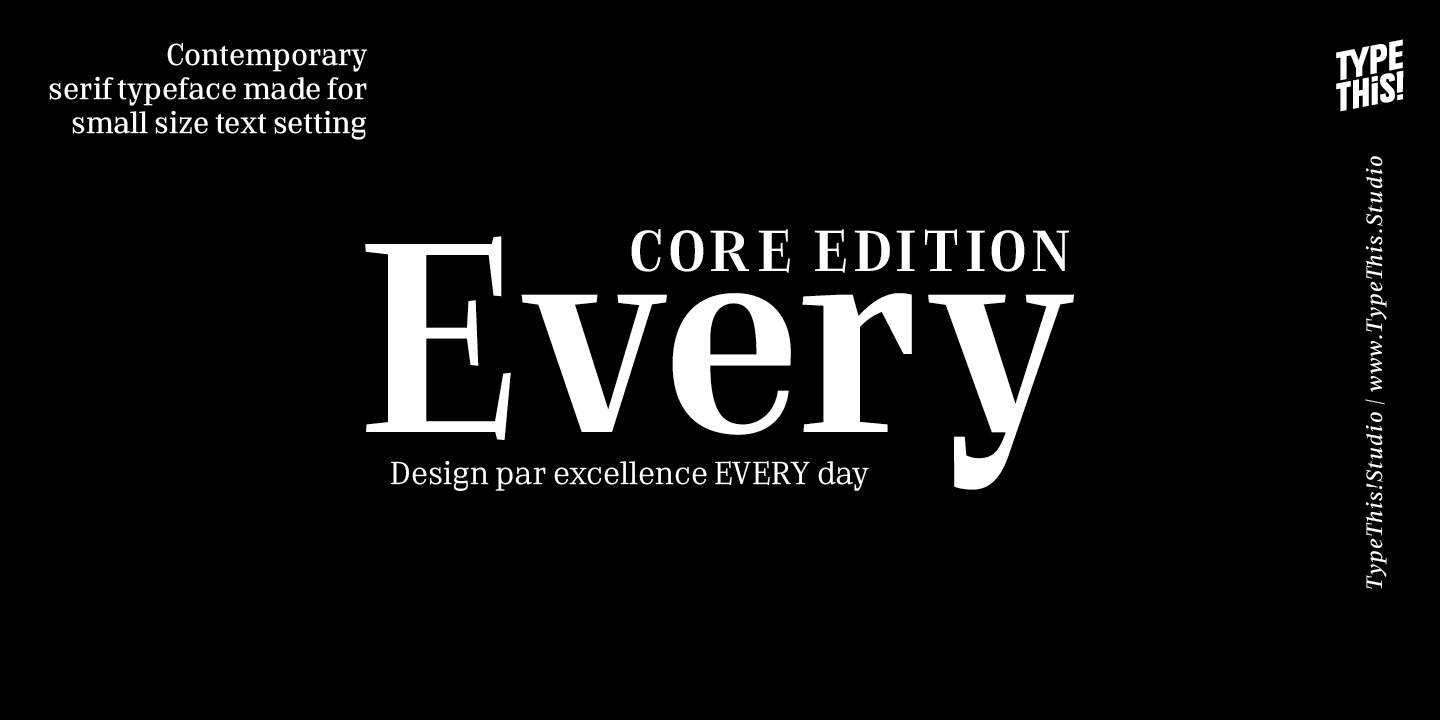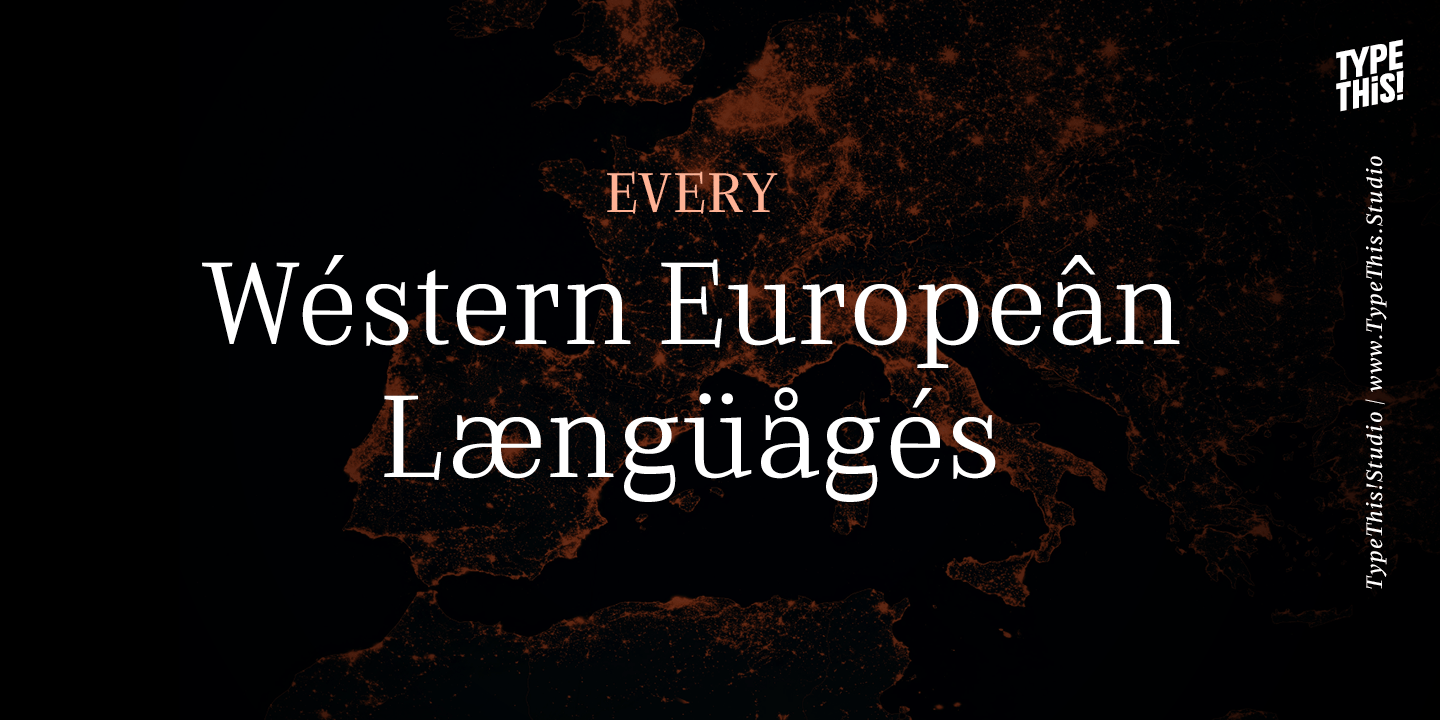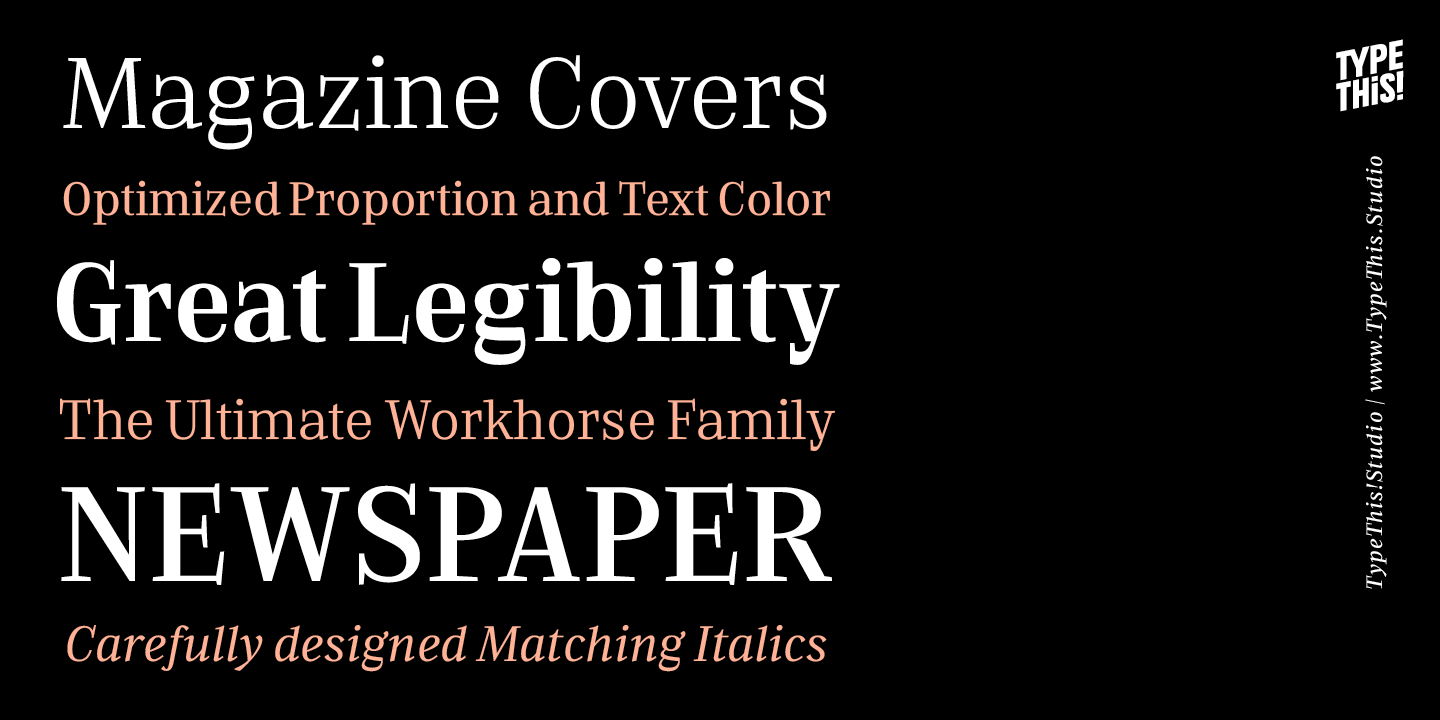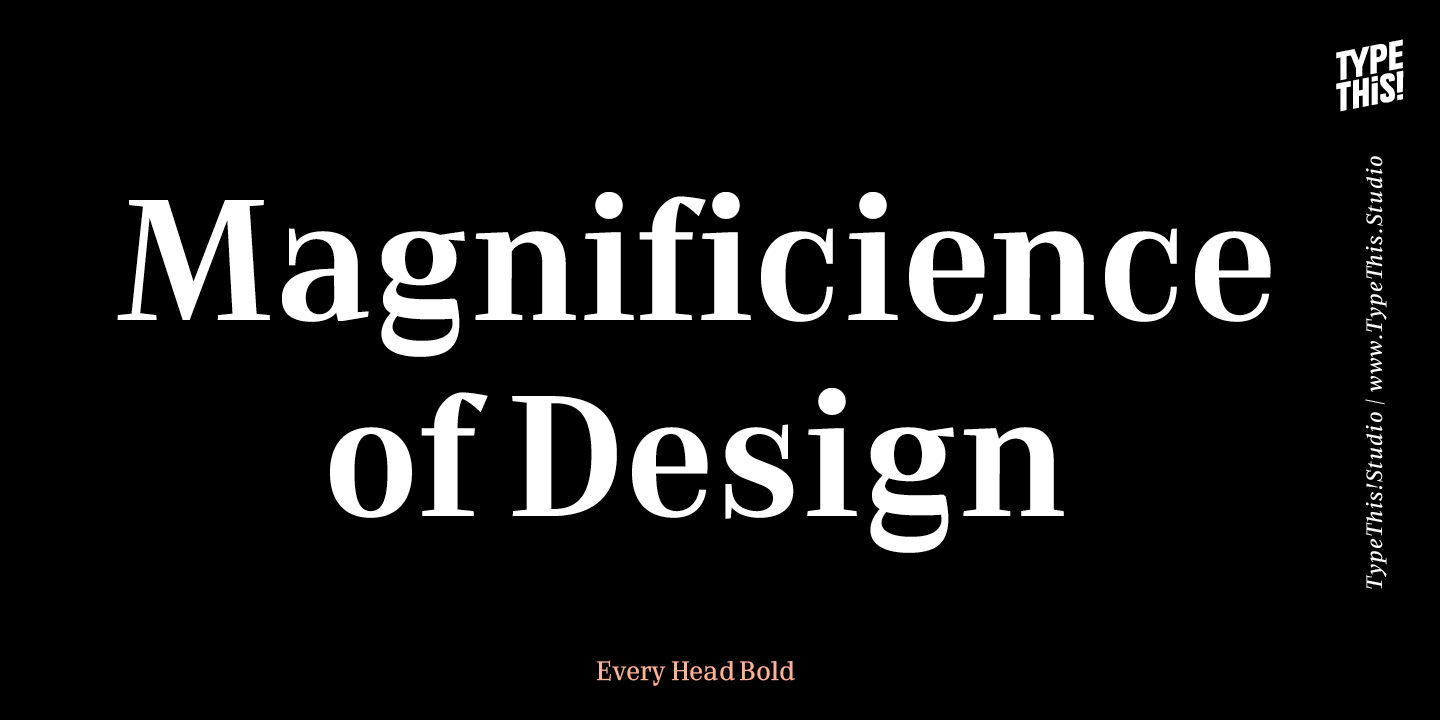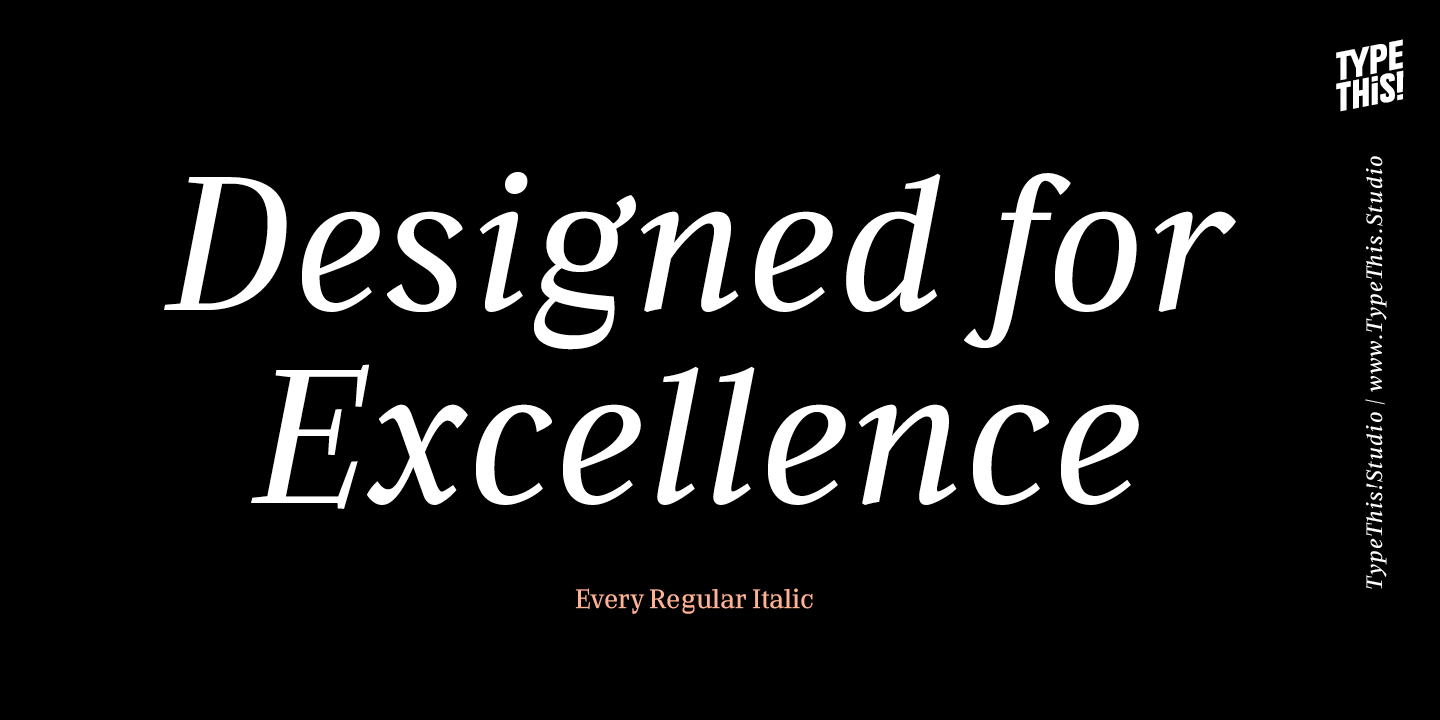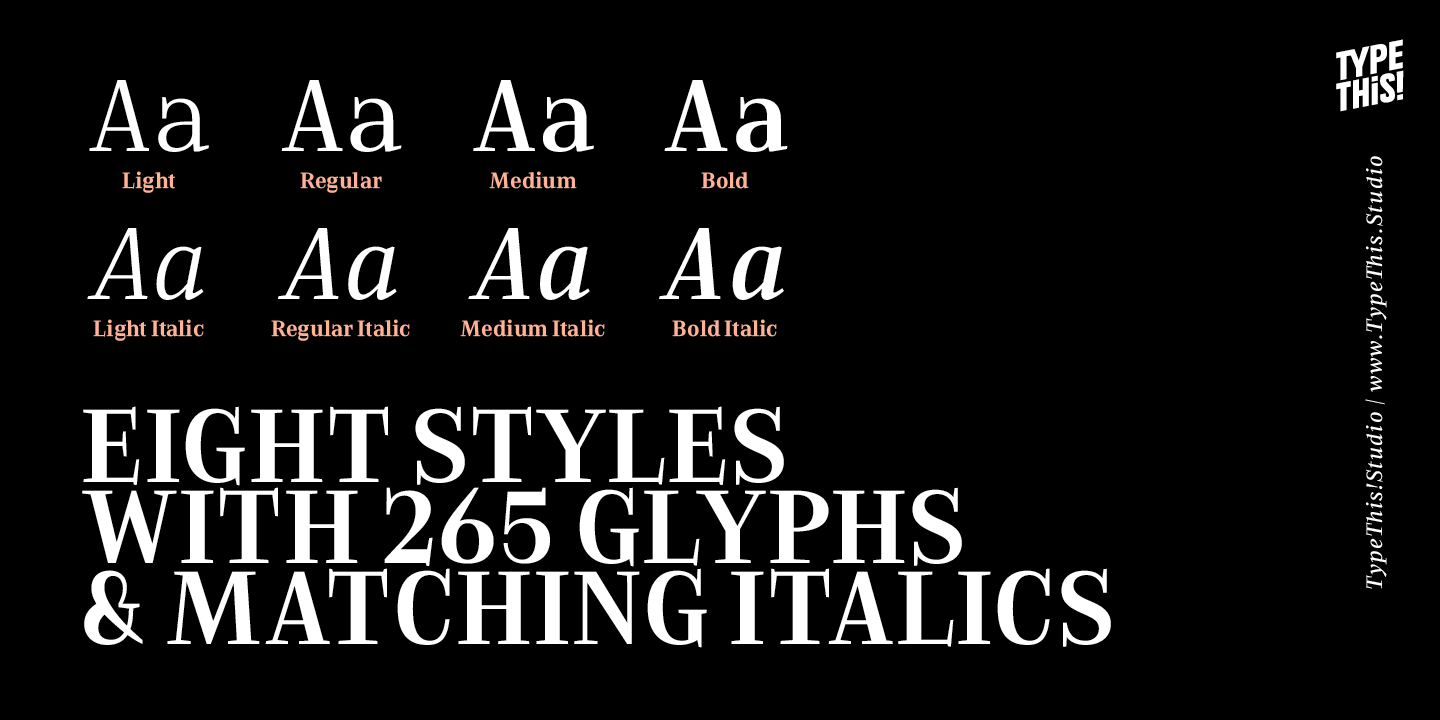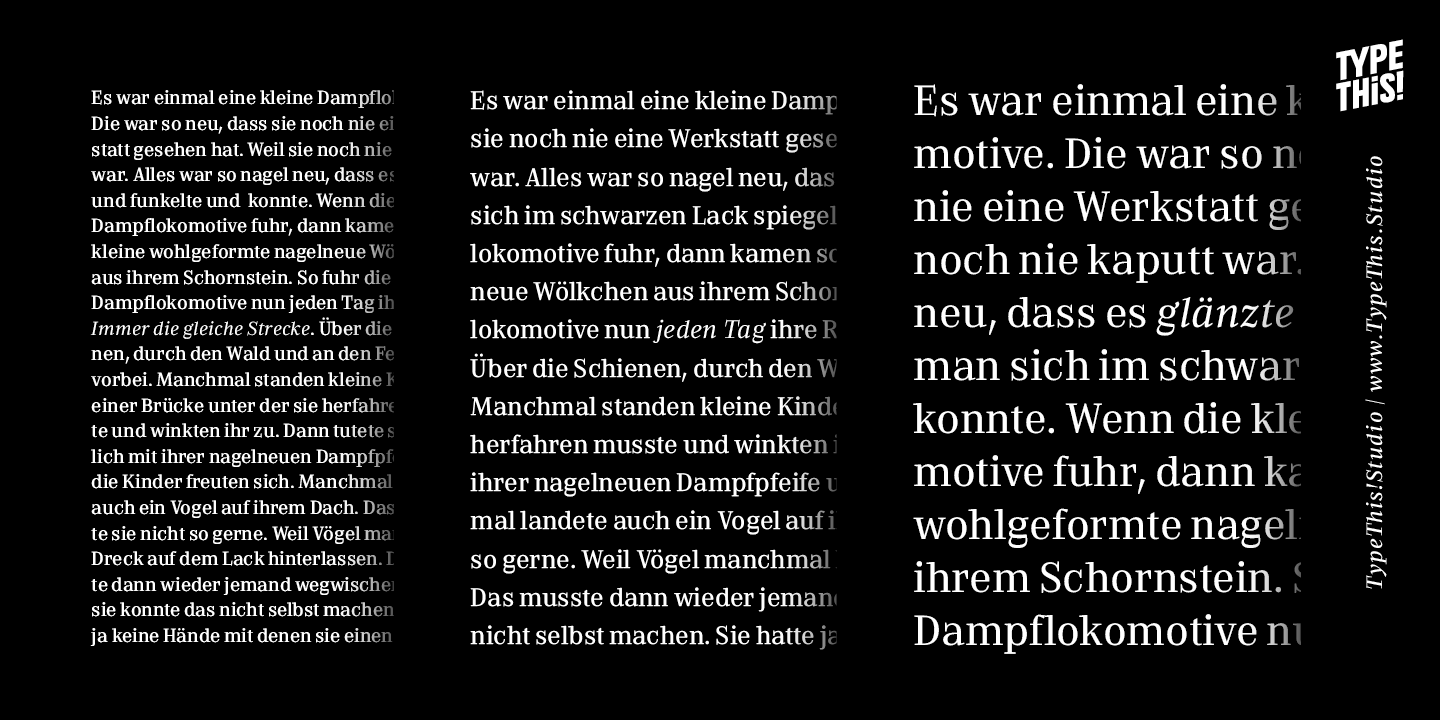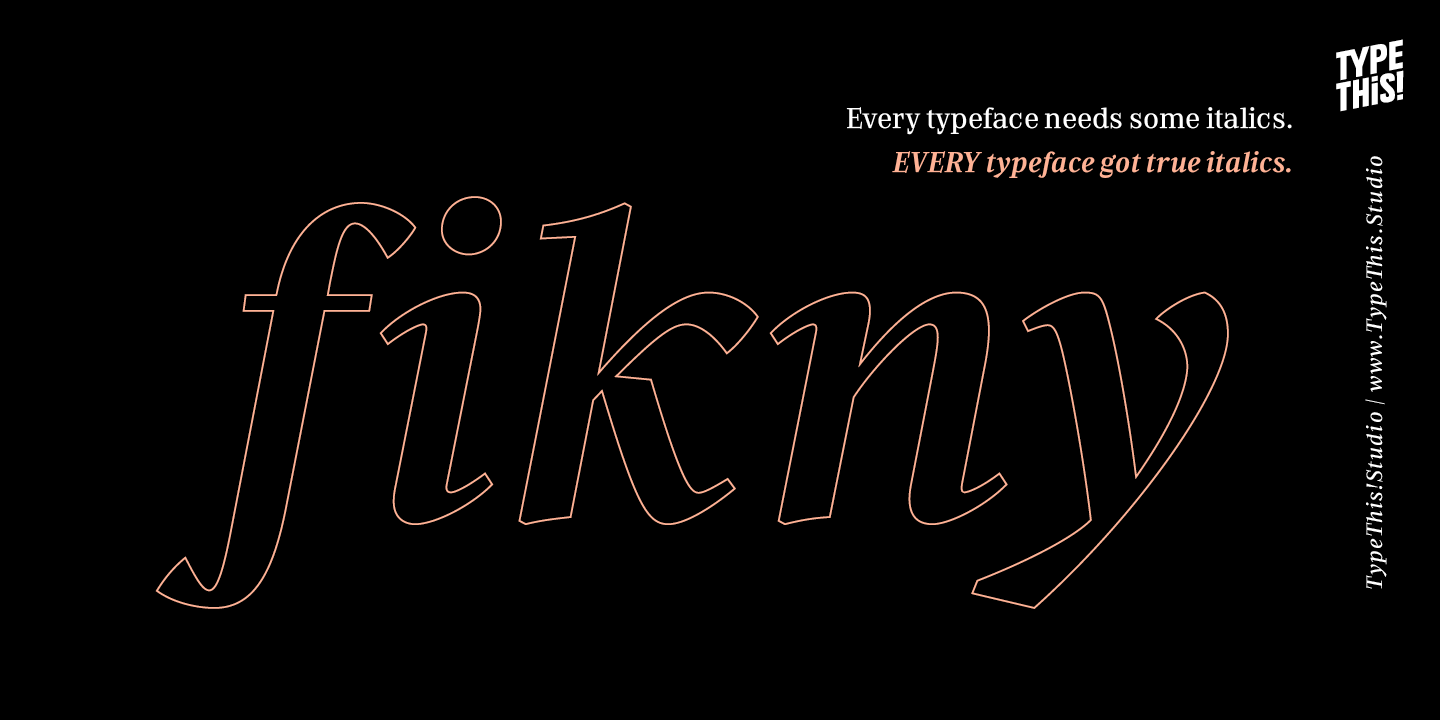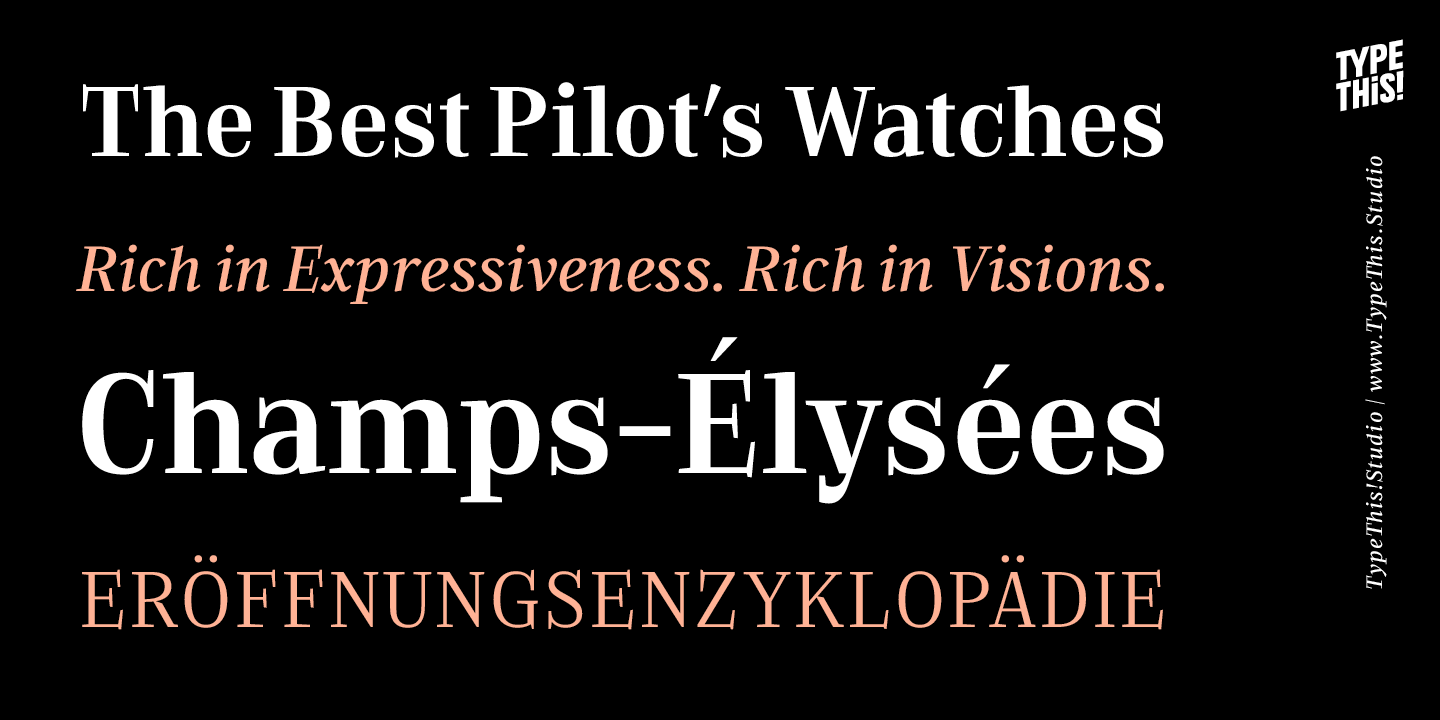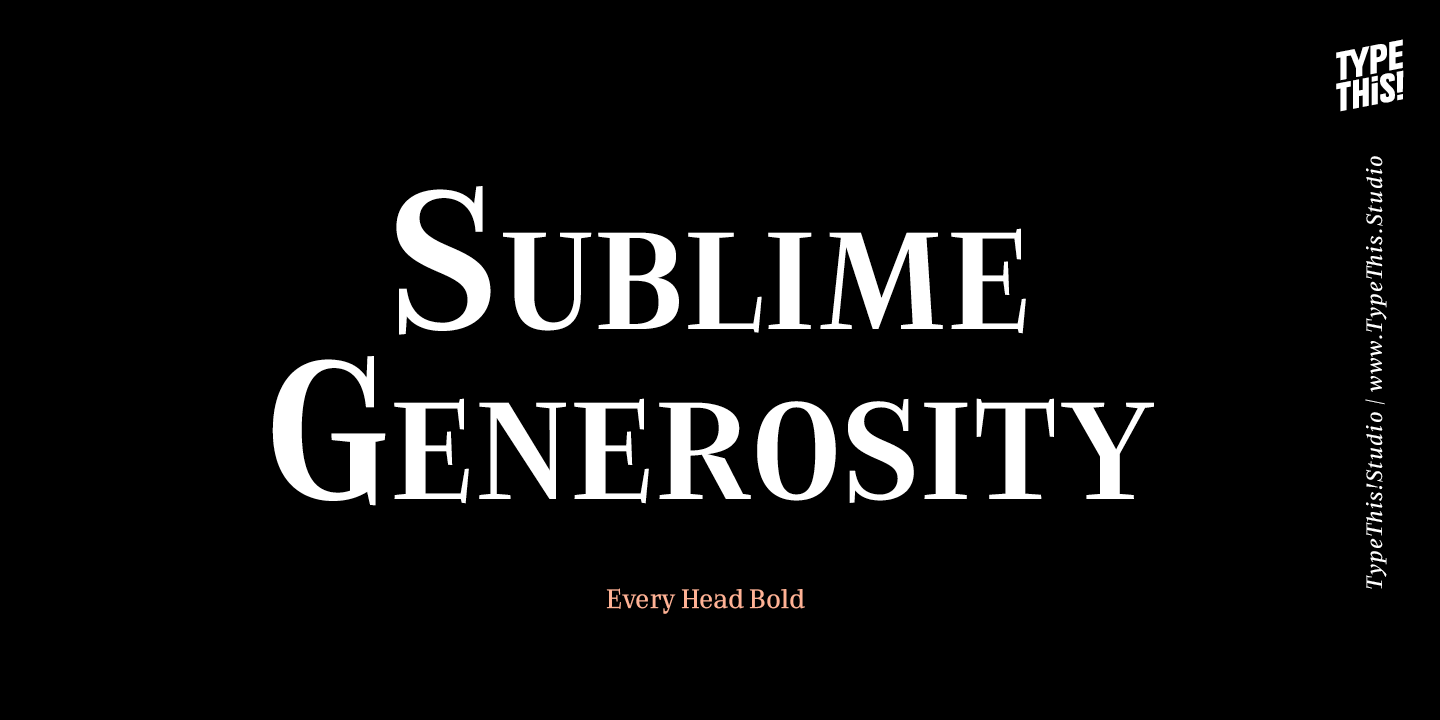
Every Core
Font Family by TypeThis!Studio
Every is designed to be the most valuable typography equipment in your repertoire!
It immediately reveals its true greatness and grandeur. Its sublime generosity, expressive aesthetics and unique presence underscore its image befitting its status.
Included in this set:
• 265 Characters
• 8 Styles, including True Italics
• Western European Language Support
• Numbers
• Symbols
• Punctuation